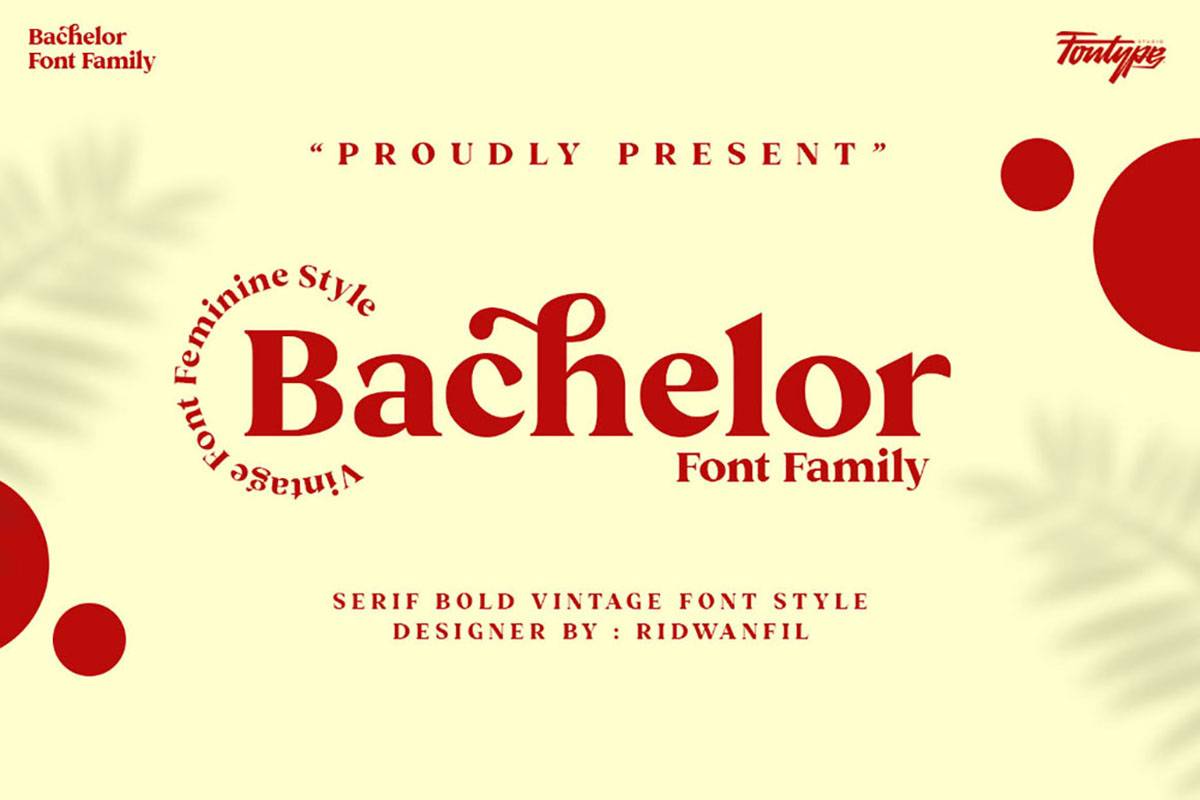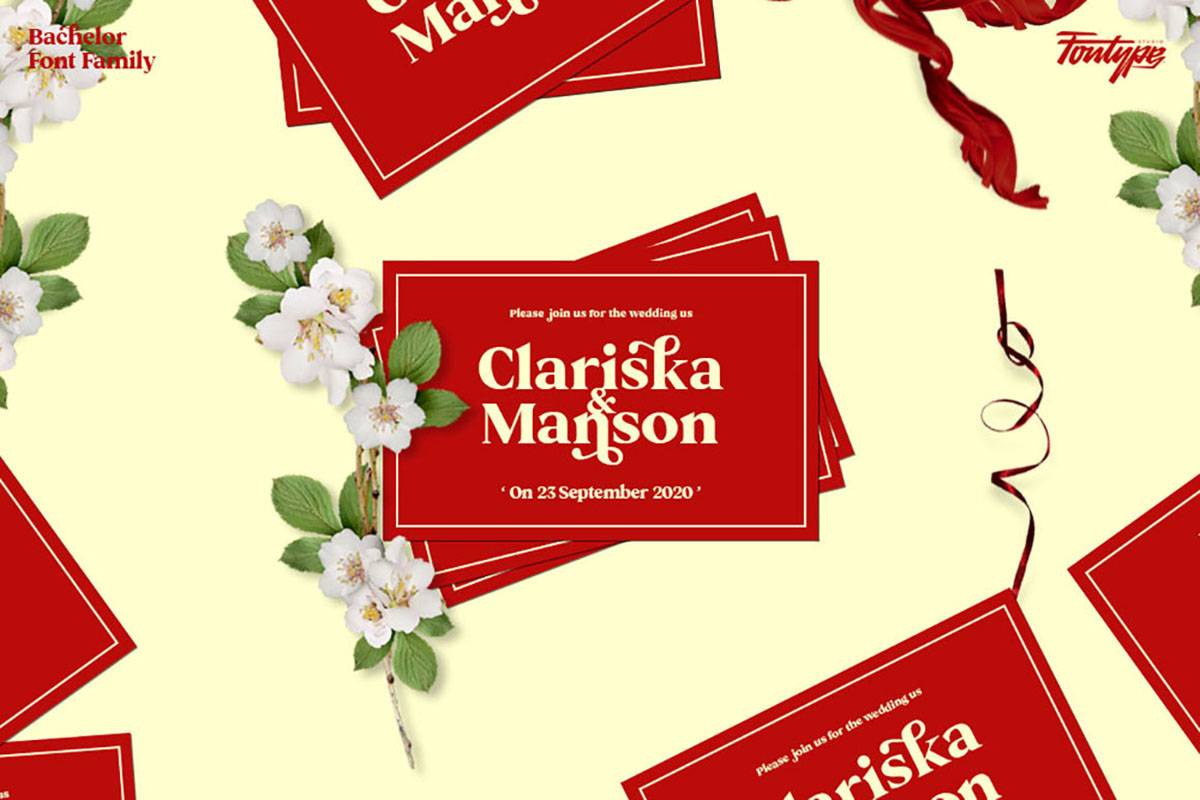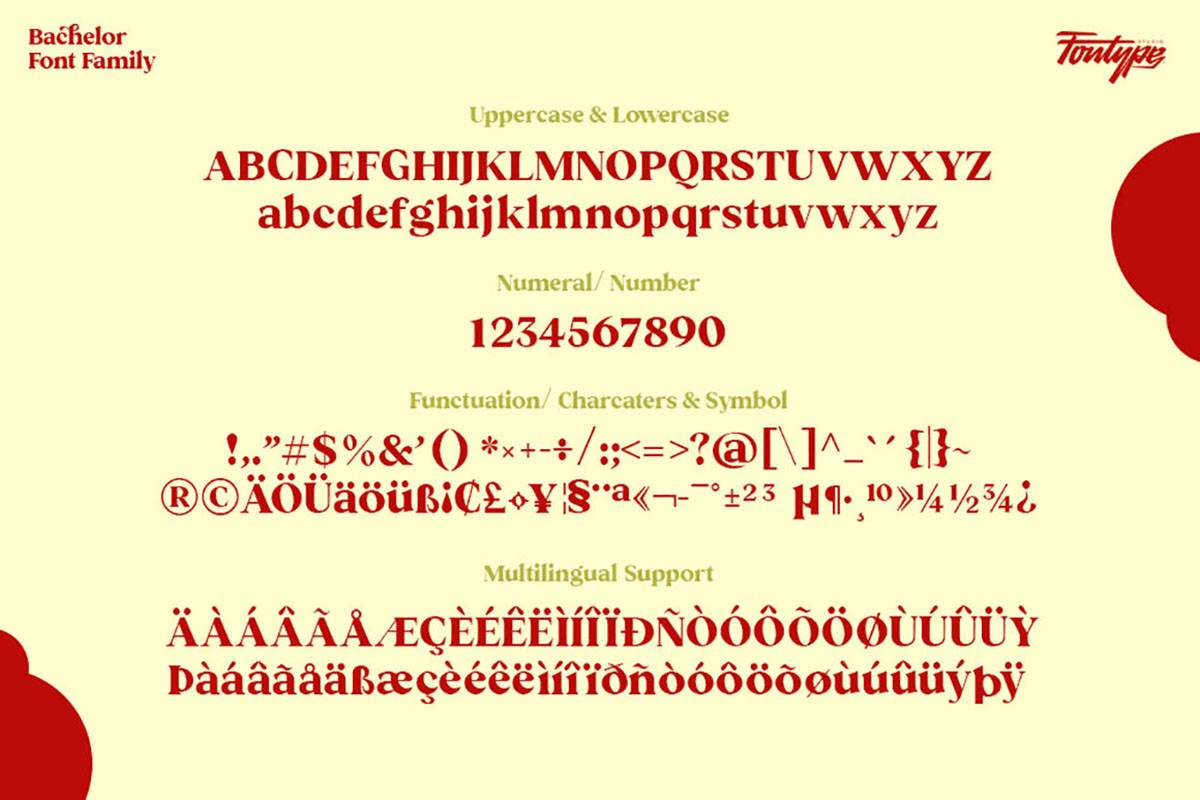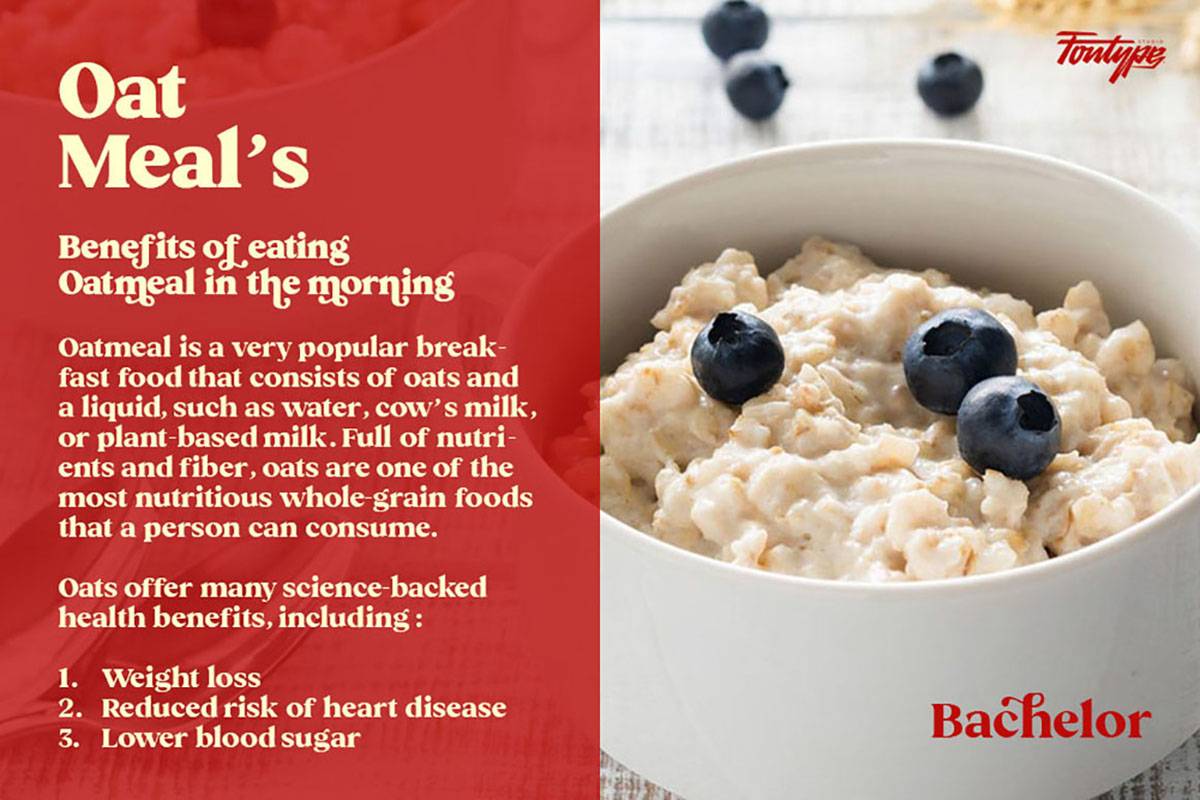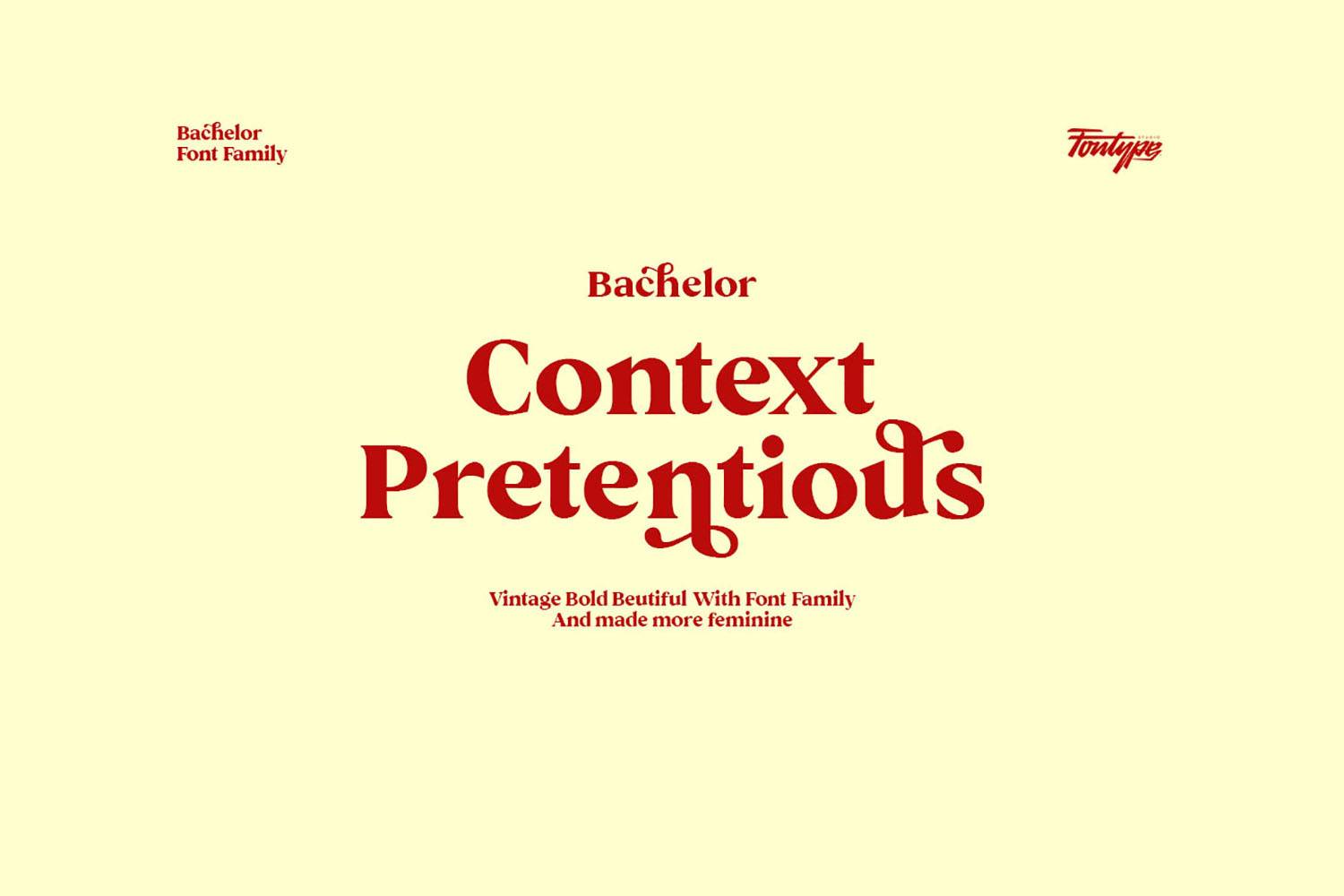
Bachelor Font is a bold serif typeface with a strong, classic presence and high contrast between thick and thin strokes. Its sharp, bracketed serifs and distinctive letterforms make it well-suited for elegant branding, editorial headlines, and stylish packaging where a timeless yet commanding look is desired. This font works best in large sizes to showcase its refined details and authoritative character.
Bachelor Font
About Bachelor Font
| Font family | Bachelor Font |
| Release date | 2021-06-15 |
| Designer | Ridwanfil (Ridwan Fadilah) |
| Font subfamily | Bold, Italic |